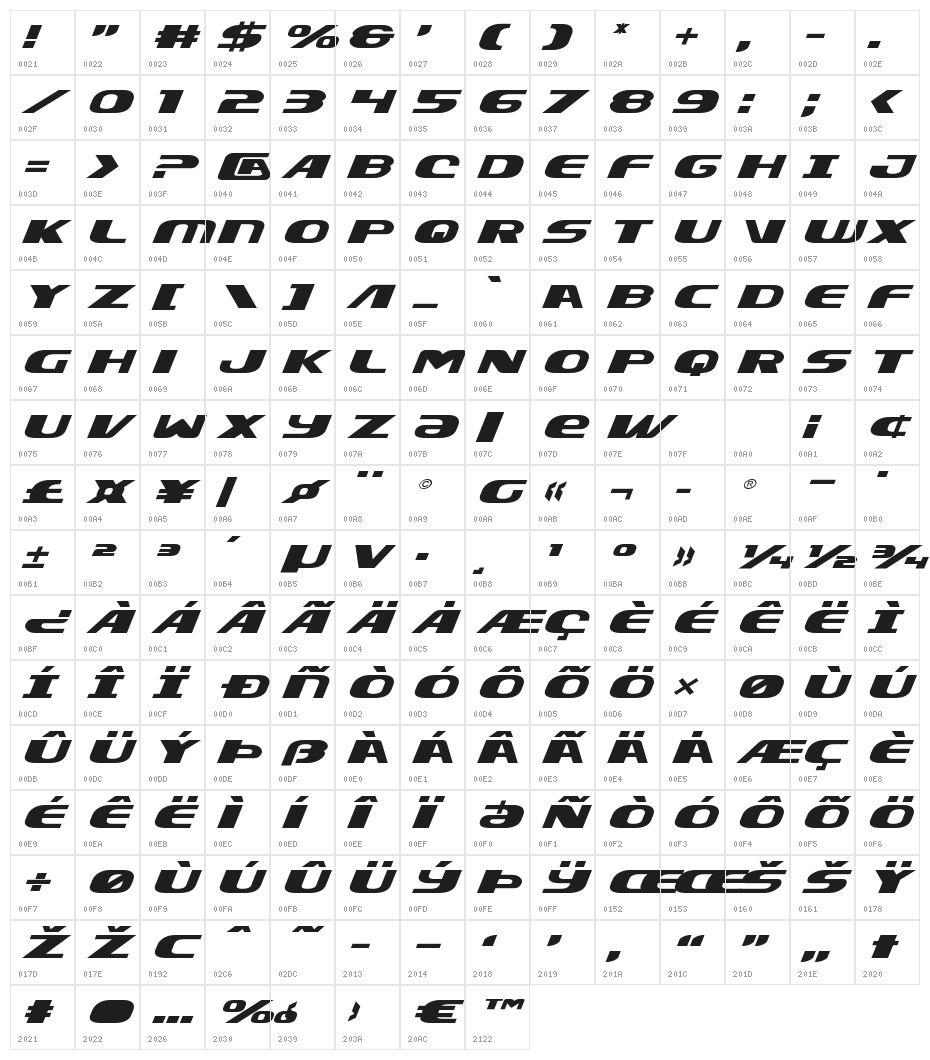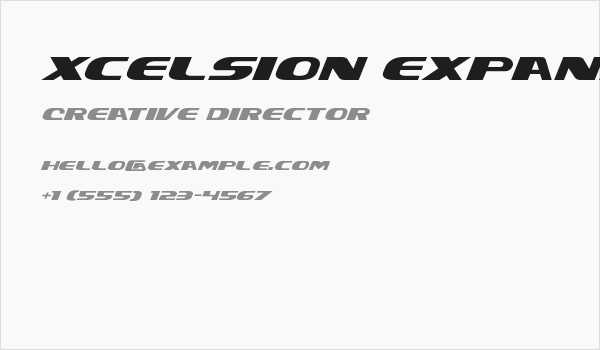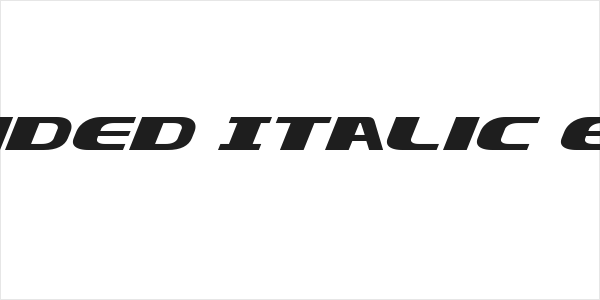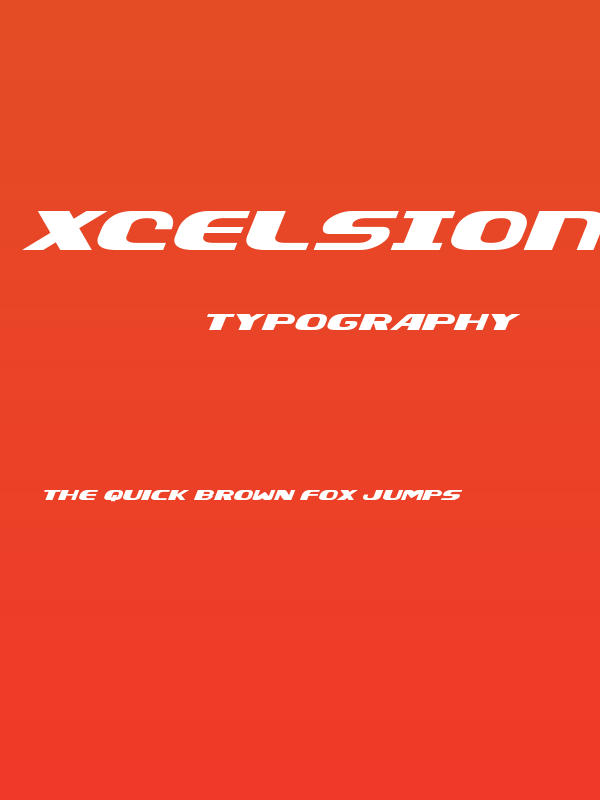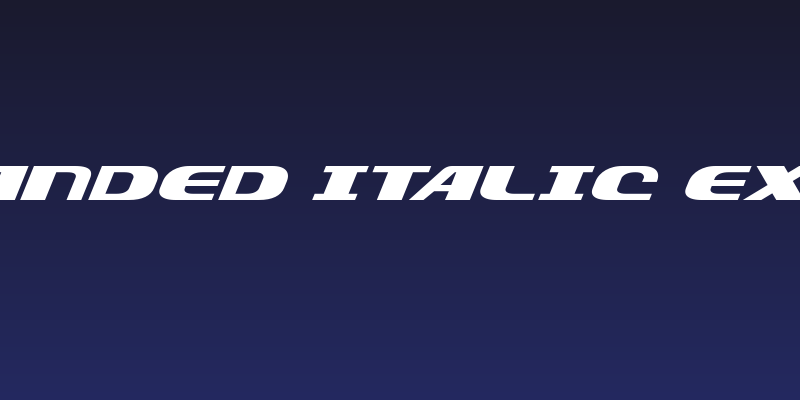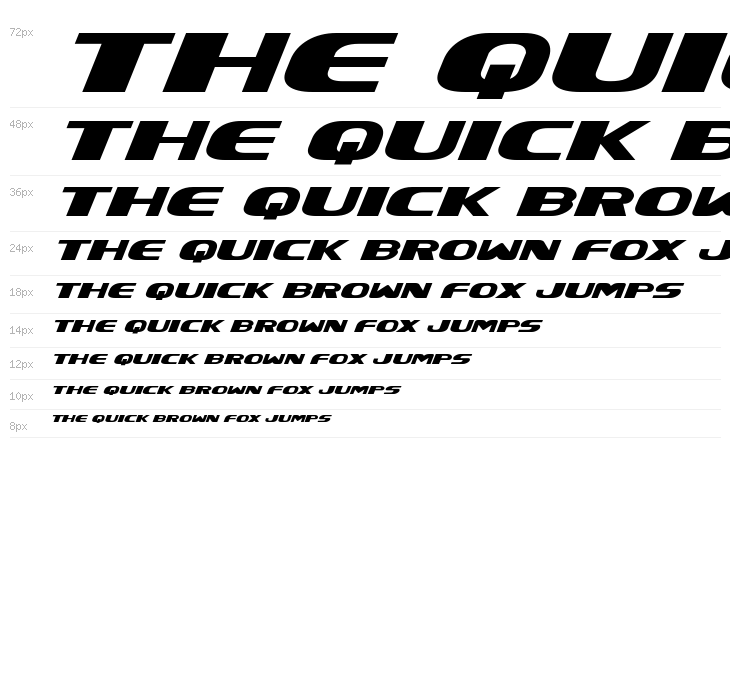
Xcelsion Expanded Italic Font
Xcelsion Expanded Italic Description
This font features a bold, italicized style with an expanded width, giving it a dynamic and modern appearance. The characters are slanted forward, enhancing the sense of motion and speed. The strokes are consistent in thickness, providing a uniform look across all characters. The font maintains a futuristic and sleek aesthetic, making it suitable for projects that require a contemporary and energetic feel. The spacing between characters is tight, contributing to its compact and impactful design.
| Proposed Projects | Ideal for sports branding, automotive designs, tech-related projects, and dynamic advertising campaigns. |